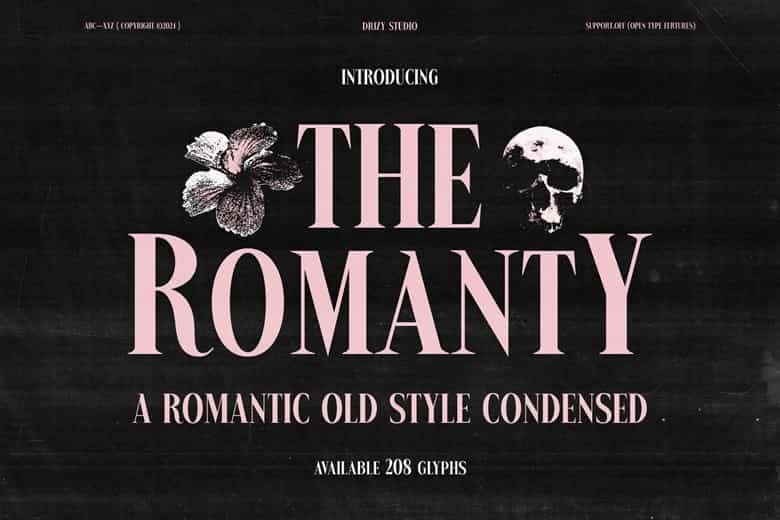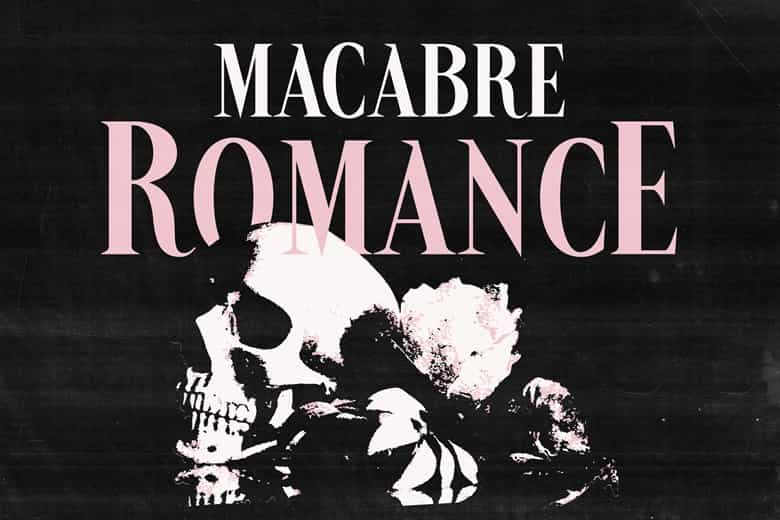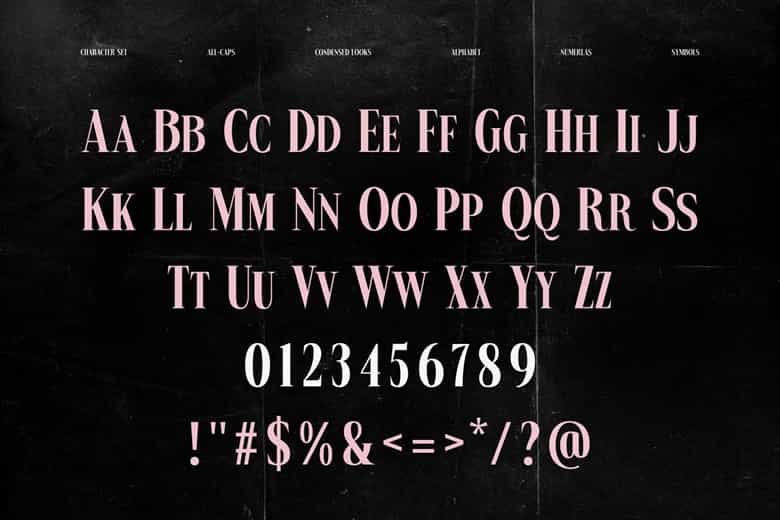
Experience the art of old style romance with The Romanty – a romantic condensed serif font that will leave your heart longing for the good old days. As inspired by the Emo Romance, this font is a combination of vintage and dramatic — a fit for any design project.